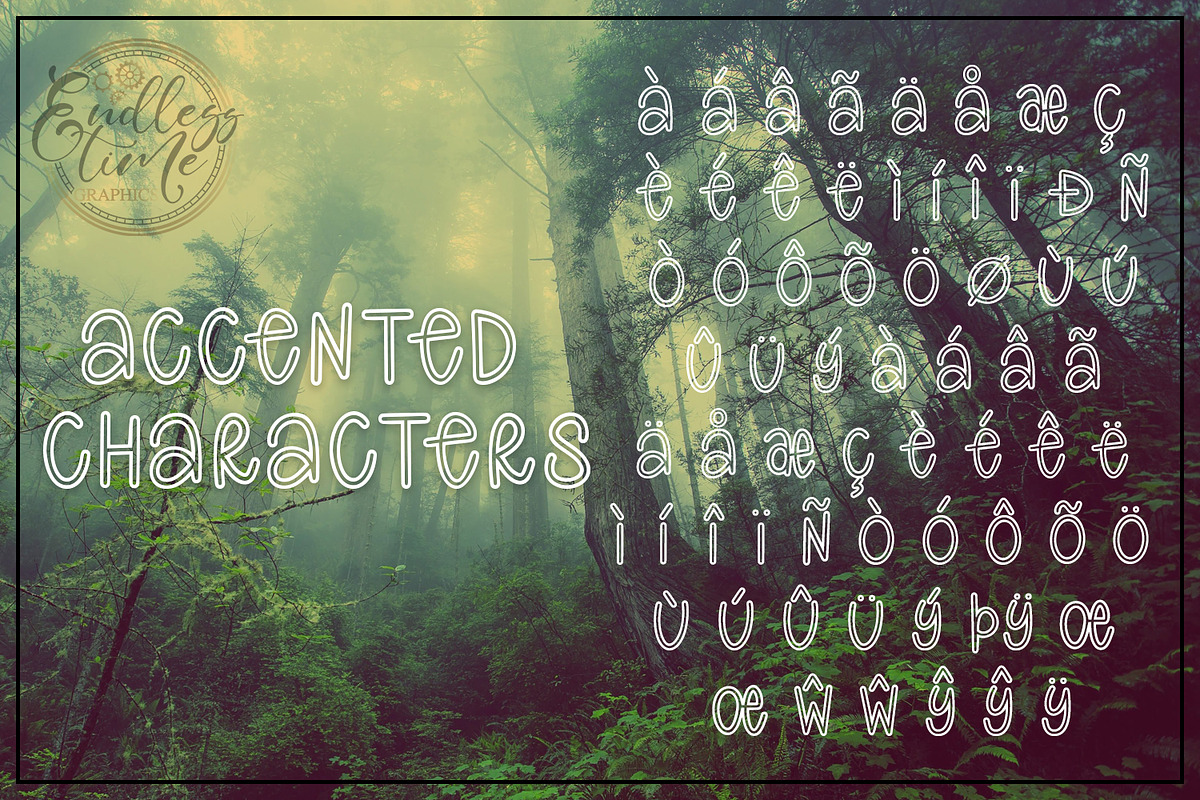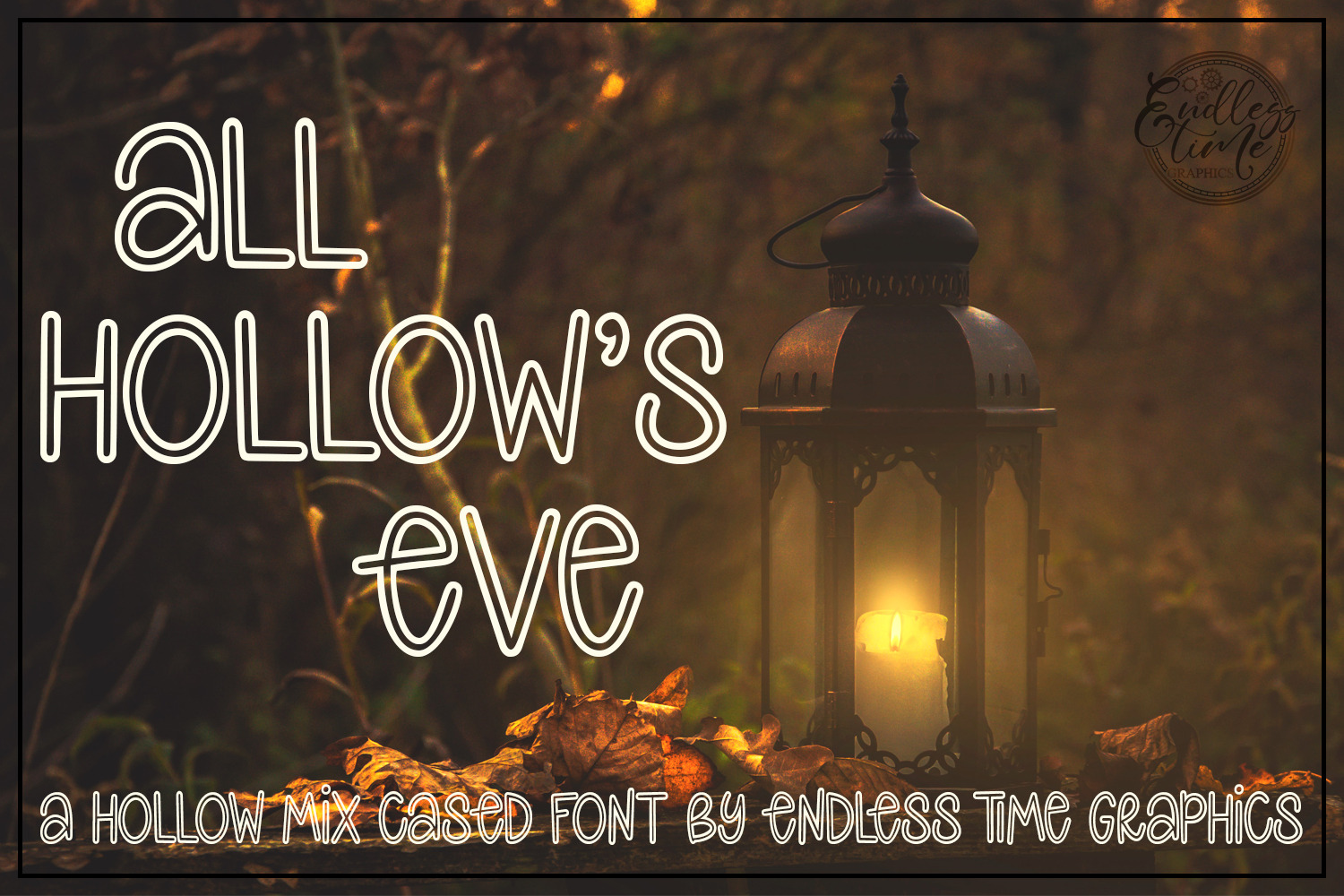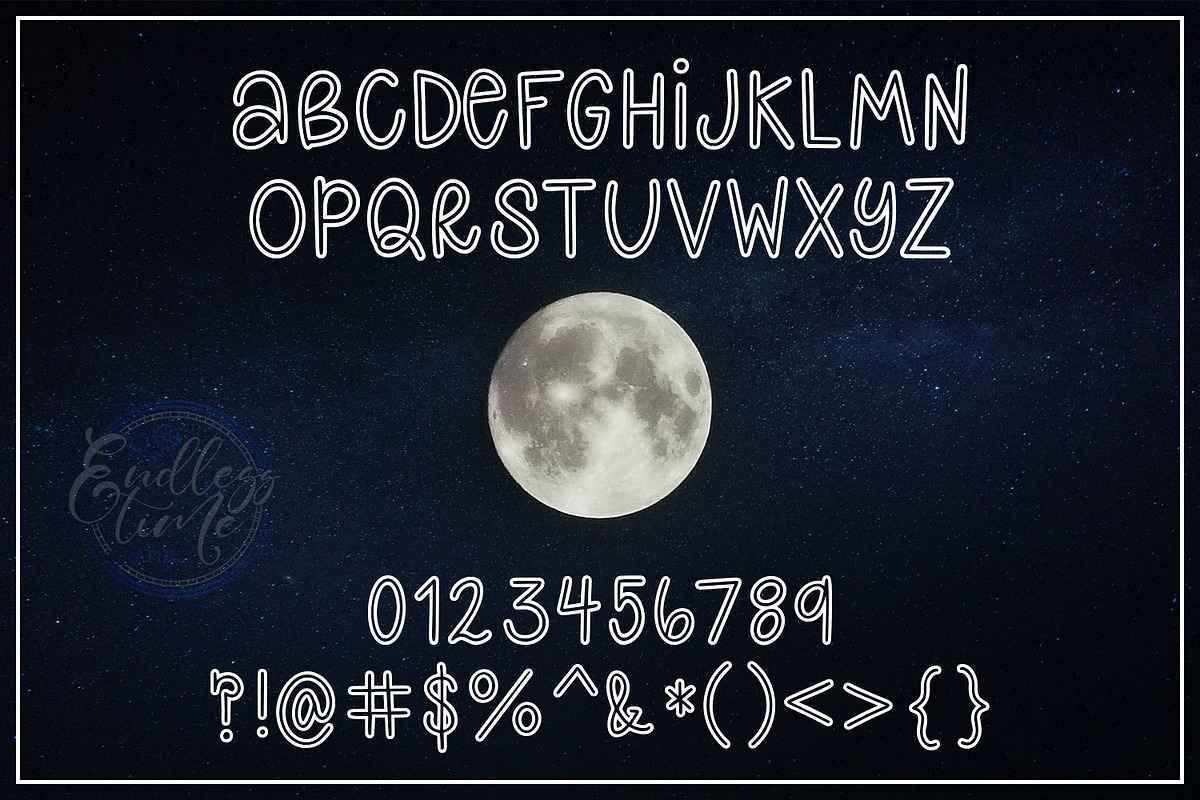
All Hollow's Eve - A Hollow Font
Introducing the spooktacular All Hollow's Eve font, perfect for your Halloween-inspired projects! Get ready to embrace the spooky fun with this special font that features hollow characters and a unique mix case design. Whether you type in uppercase or lowercase, each letter is identical, creating an awesome and cohesive look when combined.
Unleash your creativity with this font, as it's ideal for coloring books and DIY coloring t-shirts. Let your imagination run wild as you bring vibrant hues to the hollow outlines.
Enhance your designs with the abundance of ligatures included in this font, allowing you to achieve a quirky and distinctive aesthetic. Additionally, the font supports all Western European languages with its collection of accented characters. Every letter has been meticulously cleaned and perfected, ensuring smooth and flawless outlines.
Embrace the spirit of Halloween and elevate your projects with the captivating All Hollow's Eve font. Let the hollow charm and versatile nature of this font bring your creative visions to life!